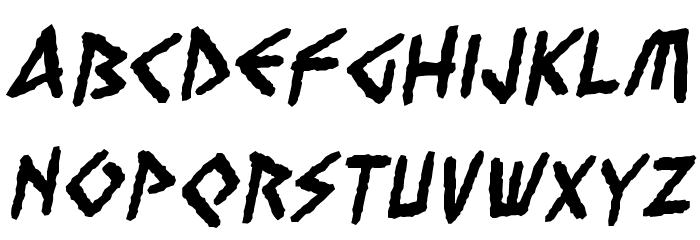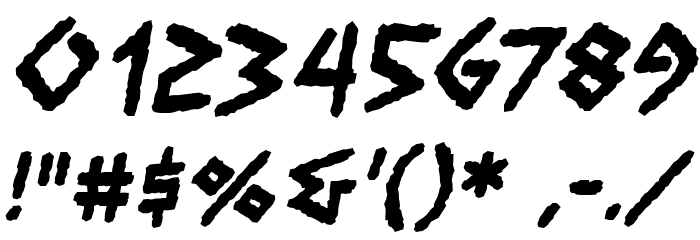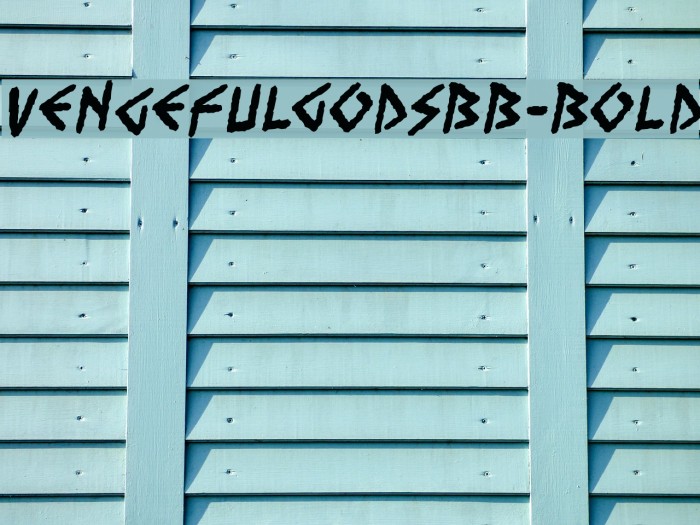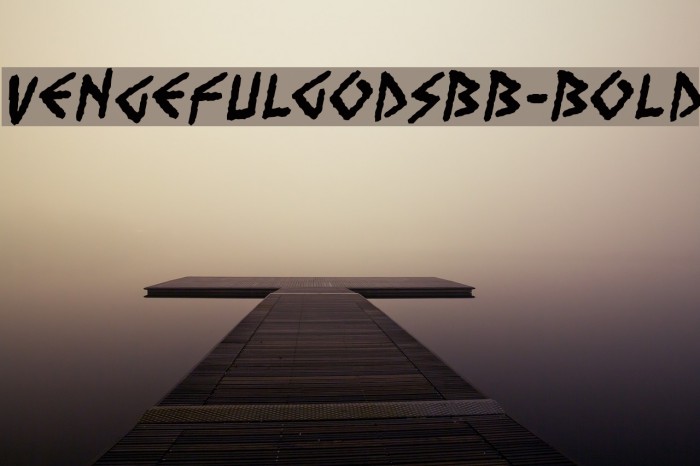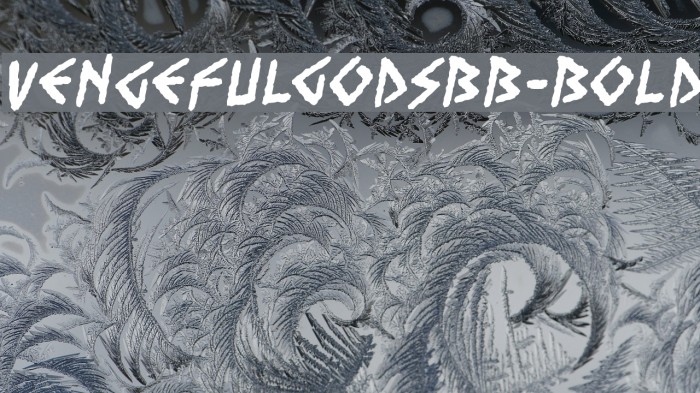
VengefulGodsBB-Bold Font
This font features a bold and aggressive style with jagged, angular strokes that convey a sense of intensity and power. The characters are designed with sharp edges and irregular forms, giving them a dynamic and energetic appearance. The uppercase and lowercase letters maintain a consistent style, while the numerals and special characters complement the overall aesthetic. The font's rough texture adds a raw, hand-drawn feel, making it ideal for projects that require a strong, impactful visual presence.
A bold, jagged font with an aggressive and dynamic style.
- Proposed Projects: Ideal for video game titles, movie posters, band logos, and any project needing a bold, intense look.
- Overall Style: Modern, Decorative